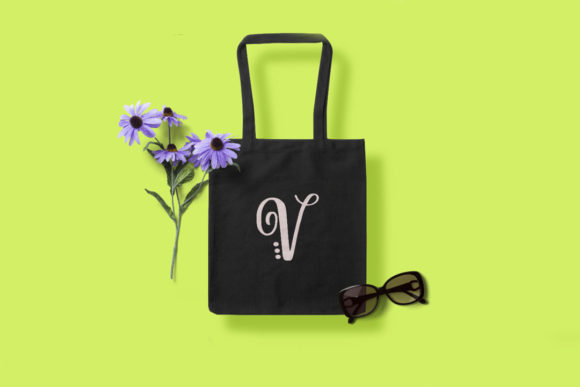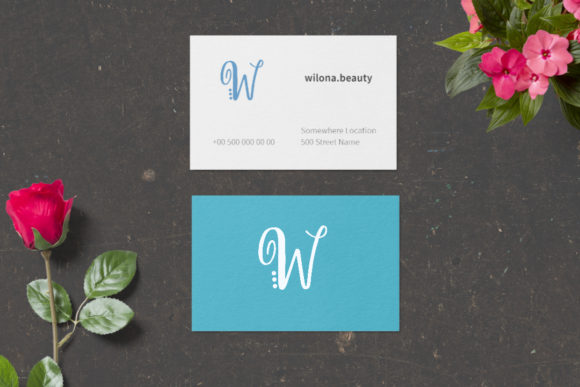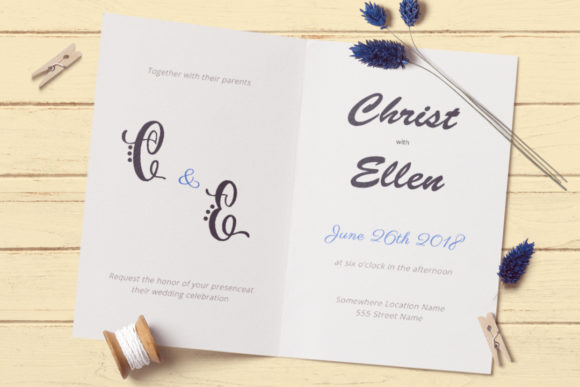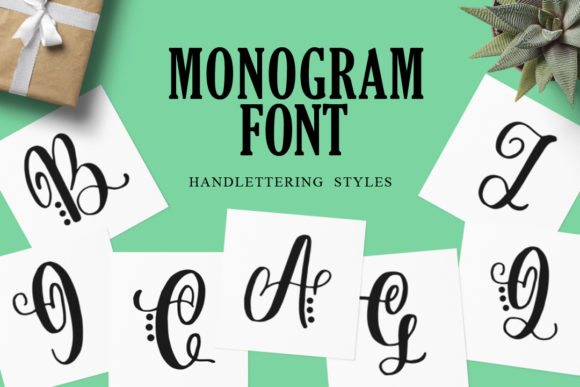
Monogram Font
The Monogram is an elegant display font. It comes in two styles; regular, and letters with elegant dots. It’s perfect for creating multiple unique designs.